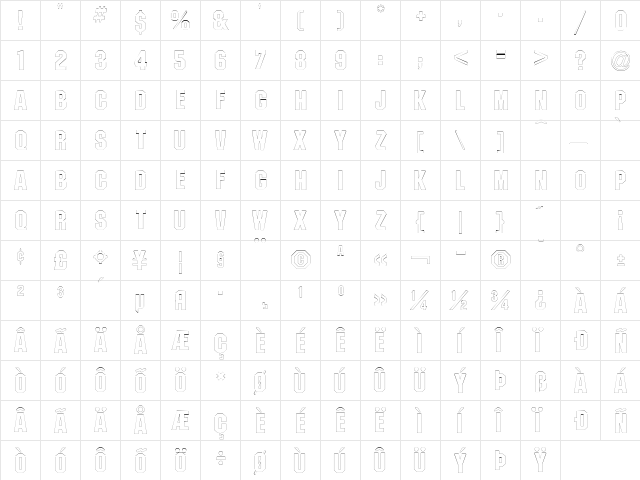
PittsburghOutline Regular
Design Context for PittsburghOutline Typeface
PittsburghOutline brings ornamental detail and strong personality to headlines and identities, where visual impact matters more than quiet functionality.
Font Pairing: Pair with a clean neutral sans-serif for body copy to let PittsburghOutline's character lead without overwhelming the composition.
Pro Tip: Treat PittsburghOutline as the centrepiece of your typographic hierarchy. One strong heading set in a decorative face can carry an entire layout.